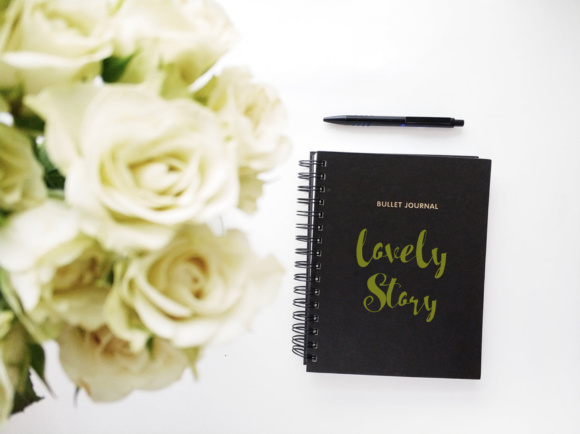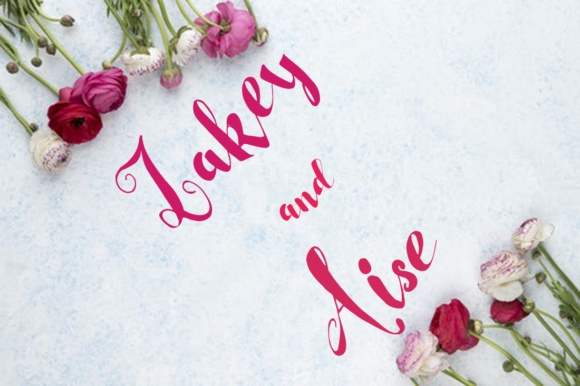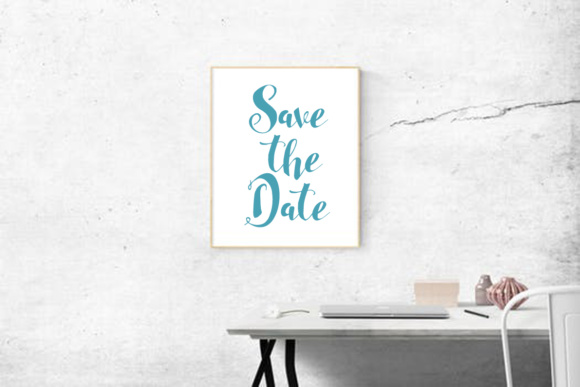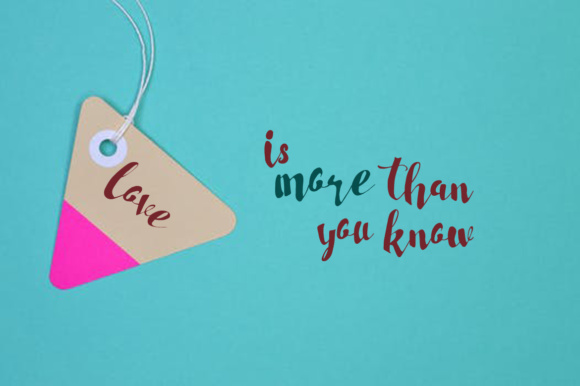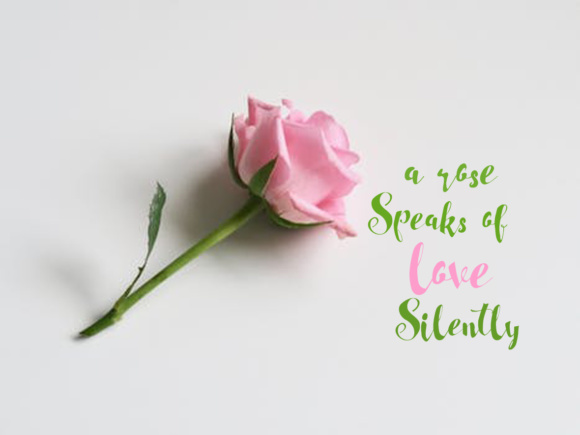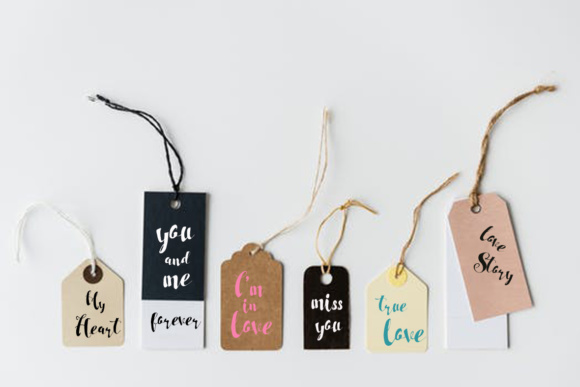
Introducing Bold Lovely Font: Elevate Your Designs with Elegance and Romance
In the world of typography, a font can make or break a design. For those seeking to infuse their projects with a touch of elegance and romance, the Bold Lovely Font is an exceptional choice. This modern and elegant calligraphy font is perfect for a variety of applications, from print projects to digital media, offering a versatile solution for designers and crafters alike.
The Essence of Bold Lovely Font
Bold Lovely Font is characterized by its romantic feel, which is achieved through its fluid and graceful lines. This calligraphy font exudes a sense of sophistication and luxury, making it ideal for projects that require a high level of elegance. Whether you’re working on wedding invitations, branding materials, or any other project that demands a touch of class, Bold Lovely Font is sure to impress.
One of the key strengths of Bold Lovely Font is its versatility. It pairs exceptionally well with sleek and clean serif and sans serif fonts, allowing designers to create visually appealing and balanced compositions. This compatibility makes it easy to incorporate Bold Lovely Font into a wide range of design projects, from modern magazines to elegant packaging.
Applications of Bold Lovely Font
The applications of Bold Lovely Font are vast and varied. Here are a few examples of how this beautiful font can be used:
- Wedding and Event Stationery: Create stunning wedding invitations, save-the-date cards, and event posters that set the tone for a memorable occasion.
- Branding and Packaging: Elevate your brand’s visual identity with elegant packaging, business cards, and letterheads that reflect a sophisticated aesthetic.
- Digital Media: Use Bold Lovely Font in digital platforms such as social media graphics, blog headers, and website designs to add a touch of elegance and professionalism.
- Print Projects: Enhance your print materials, including brochures, flyers, and posters, with a font that commands attention and conveys luxury.
Why Choose Bold Lovely Font?
Choosing Bold Lovely Font for your design projects comes with several benefits:
- Elegance and Sophistication: Instantly elevate your designs with a font that embodies elegance and sophistication.
- Romantic Feel: Add a romantic touch to your projects, perfect for weddings, anniversaries, and other special occasions.
- Versatility: Pair well with a variety of font styles to create unique and visually appealing designs.
Tips for Using Bold Lovely Font
To get the most out of Bold Lovely Font, consider the following tips:
- Experiment with Sizes: Play with different font sizes to create visual hierarchy and emphasize key elements in your design.
- Mix and Match: Don’t be afraid to combine Bold Lovely Font with other fonts to create a unique and harmonious design.
- Pay Attention to Spacing: Ensure adequate spacing between letters and lines to maintain readability and aesthetic appeal.
Bold Lovely Font is a stunning calligraphy font that brings a modern and elegant touch to any design project. Its romantic feel, versatility, and ease of use make it an excellent choice for designers and crafters looking to create sophisticated and visually appealing works. Whether you’re working on print projects, digital media, or branding materials, Bold Lovely Font is sure to elevate your designs to new heights.
Discover the beauty and elegance of Bold Lovely Font and transform your designs with its luxurious and romantic charm.